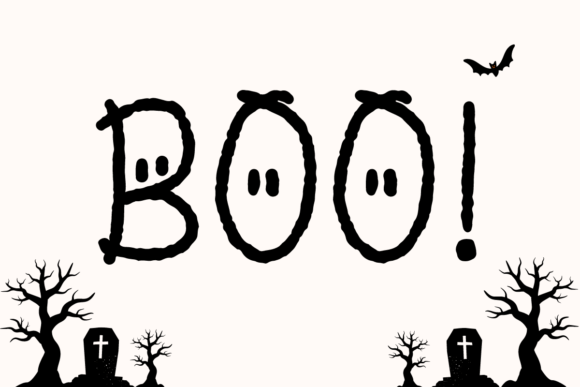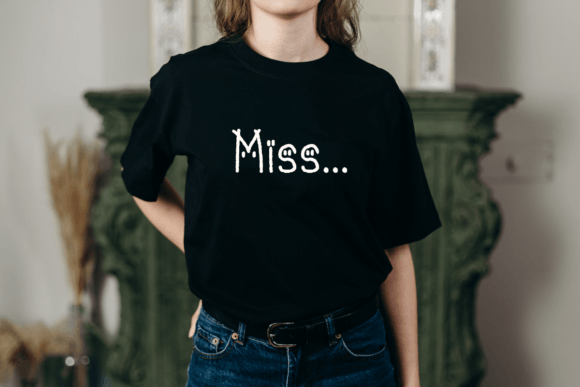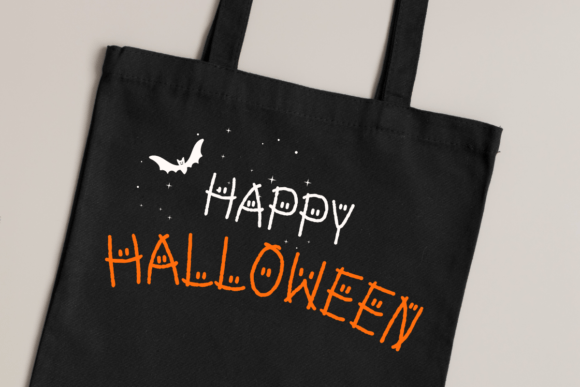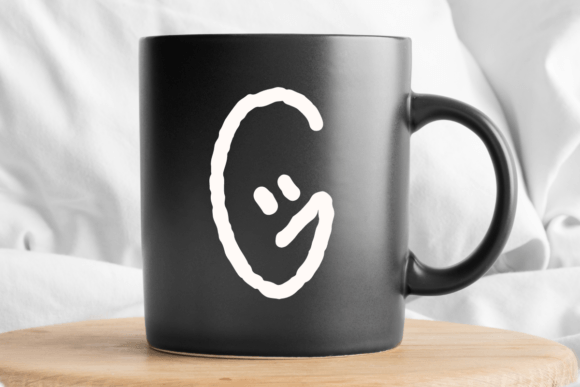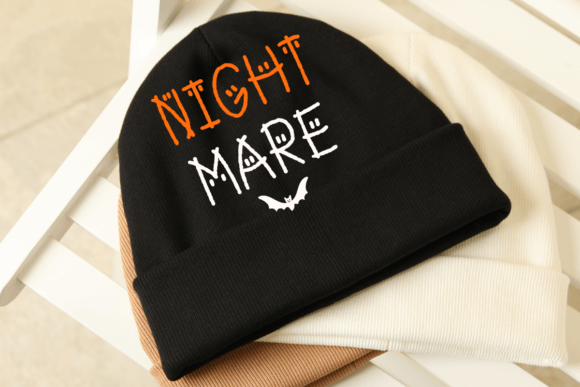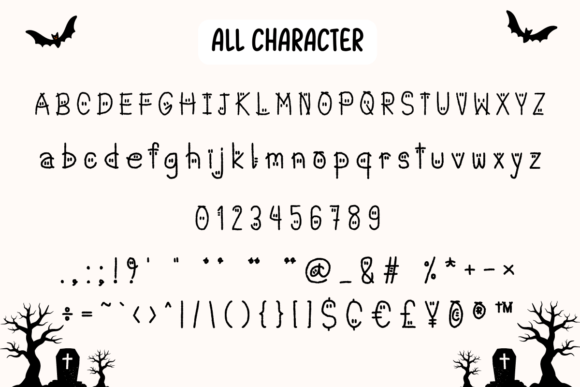
Unleash the Spooky Charm with Ghost Light Font: A Perfect Halloween Companion
As the spookiest time of the year approaches, designers and crafters are on the lookout for the perfect font to add a touch of eeriness to their creations. Look no further than the Ghost Light Font, a cool and quirky display font that’s sure to cast a spell on your audience. With its spooky, scary, and mysterious vibe, this font is perfect for Halloween-themed designs, but its unique charm also makes it suitable for a wide range of creative projects.
The Spooky Charm of Ghost Light Font
Ghost Light Font is a display font that’s specifically designed to add a touch of whimsy and playfulness to your designs. Its quirky and irregular shape gives it a one-of-a-kind look that’s sure to grab attention. The font’s spooky and scary undertones make it perfect for Halloween-themed designs, such as party invitations, pumpkin carvings, and spooky decorations. However, its unique charm also makes it suitable for a wide range of creative projects, from bold headlines to eye-catching posters.
Key Features of Ghost Light Font
- Unique and Quirky Design: Ghost Light Font boasts a distinctive and irregular shape that sets it apart from other fonts.
- Spooky and Scary Undertones: The font’s spooky and scary undertones make it perfect for Halloween-themed designs.
- Perfect for Display Text: Ghost Light Font is specifically designed for display text, making it perfect for headlines, titles, and captions.
- Easy to Read: Despite its quirky design, Ghost Light Font is easy to read, making it perfect for a wide range of creative projects.
How to Use Ghost Light Font in Your Designs
Ghost Light Font is incredibly versatile and can be used in a wide range of creative projects. Here are a few ideas to get you started:
- Halloween-themed designs: Use Ghost Light Font to create spooky party invitations, pumpkin carvings, and spooky decorations.
- Bold Headlines: Add a touch of whimsy to your headlines with Ghost Light Font.
- Eye-catching Posters: Use Ghost Light Font to create eye-catching posters for your favorite movies, TV shows, or events.
- Social Media Graphics: Add a touch of personality to your social media graphics with Ghost Light Font.
Tips and Tricks for Using Ghost Light Font
Here are a few tips and tricks to help you get the most out of Ghost Light Font:
- Experiment with Colors: Ghost Light Font looks great in a range of colors, from bold and bright to muted and pastel.
- Play with Texture: Add texture to your designs by combining Ghost Light Font with different textures and patterns.
- Mix and Match Fonts: Combine Ghost Light Font with other fonts to create a unique and eye-catching look.
Ghost Light Font is a unique and quirky display font that’s perfect for designers and crafters looking to add a touch of spooky charm to their creations. With its spooky and scary undertones, this font is perfect for Halloween-themed designs, but its unique charm also makes it suitable for a wide range of creative projects. Whether you’re creating bold headlines, eye-catching posters, or social media graphics, Ghost Light Font is sure to add an incredibly joyful touch to your designs.